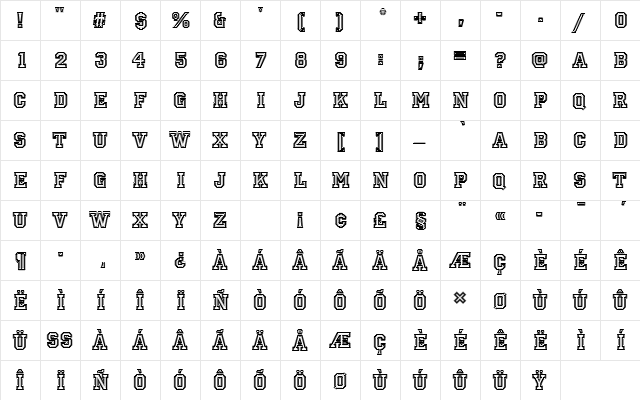
PrincetownDIn1 Regular
Design Context for PrincetownDIn1 Typeface
PrincetownDIn1 is a composed and adaptable typeface that performs quietly and consistently across a wide range of design contexts.